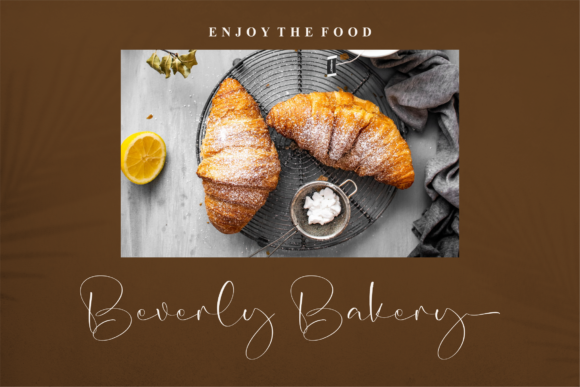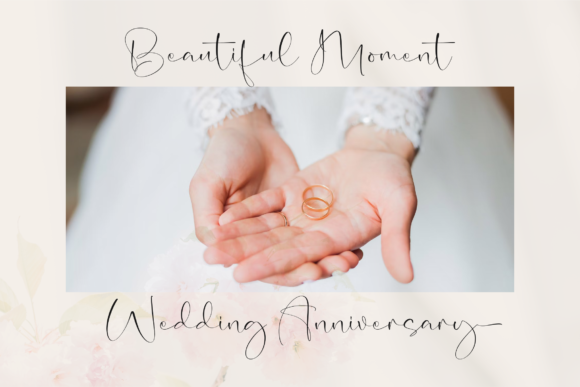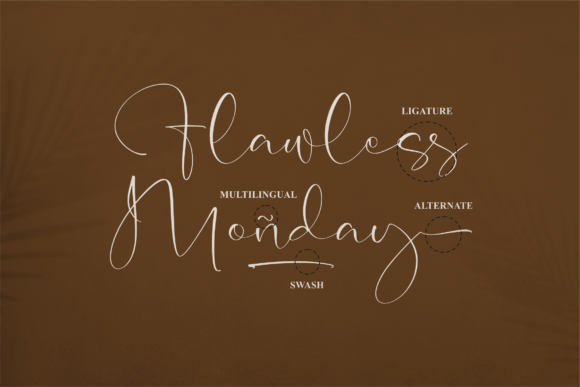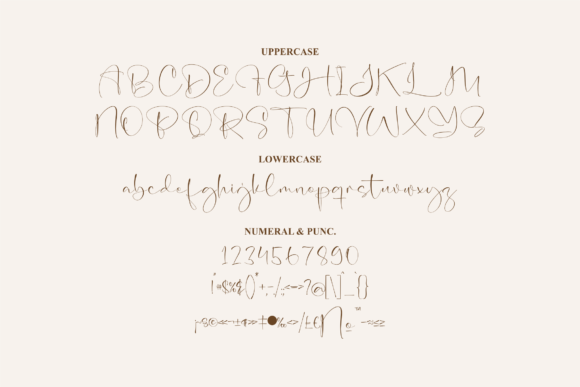
About Michella Calvert Font
Michella Calvert is a script font that effortlessly combines fashion and delicacy, making it an ideal choice for a wide variety of design projects. Its elegant and refined strokes bring a touch of sophistication to any visual composition, while its delicate curves add a sense of charm and grace.
With its versatility in mind, Michella Calvert is well-suited for an array of applications, ranging from logos and branding projects to labels, photography, watermarks, and special events. Its adaptable nature ensures that it can seamlessly integrate into different design contexts, enhancing the overall aesthetic appeal of your creations.
The font’s flowing script style lends itself particularly well to projects that call for an element of elegance and personalization. Whether you’re crafting logos for your brand, designing invitations for special occasions, or adding a distinctive touch to your photography, Michella Calvert offers a beautiful script taste that exudes creativity and sophistication.
An outstanding feature of Michella Calvert is its ability to capture attention and evoke emotions. The unique letterforms and well-crafted characters command visual interest and convey a sense of artistry. The font’s balanced design ensures legibility and visual harmony, even in intricate compositions.
Introducing Michella Calvert into your design toolkit opens up a realm of creative possibilities. Its fashionable and delicate attributes make it an excellent choice for infusing elegance and allure into your projects, enabling you to make a memorable impression and elevate your designs to new heights.